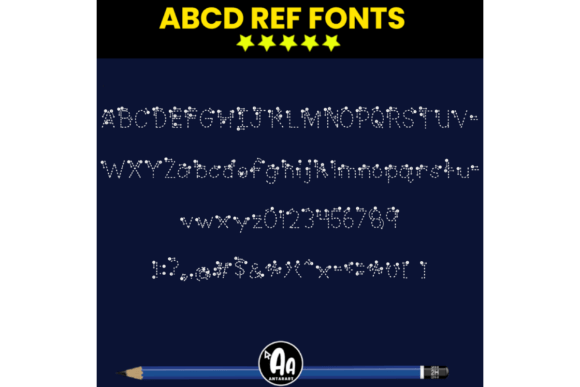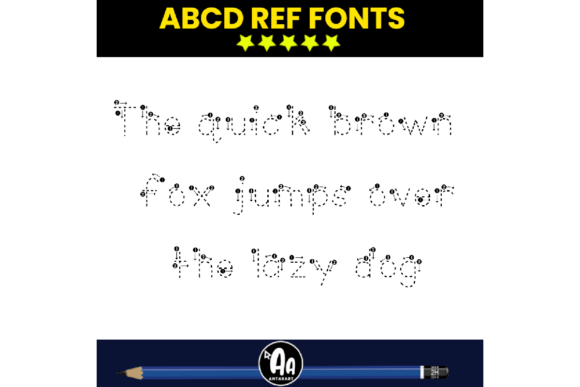
Unlocking Creative Learning with Abcd Ref Dashed Arrows Numbers Font
As a creative enthusiast, I’ve had my fair share of designing engaging materials for kids. One font that has truly revolutionized my workflow is the Abcd Ref Dashed Arrows Numbers Font. In this article, I’ll share my journey with this font, its features, and how you can make the most of it in your designs.
A Design Moment: The Struggle is Real
I recall working on a project for a kindergarten class, aiming to create interactive worksheets that would make learning fun. The challenge? Finding a font that was both educational and visually appealing. That’s when I stumbled upon the Abcd Ref Dashed Arrows Numbers Font. It was love at first sight! ✨
- âś… The font’s traditional school handwriting style is perfect for creating engaging and familiar materials for young learners.
- ✅ It includes uppercase and lowercase letters, numbers (0–9), and common symbols, making it versatile for various projects.
- âś… The dotted (dashed) arrows are a game-changer for creating interactive tracing worksheets.
While the Abcd Ref Dashed Arrows Numbers Font is amazing, there are a few things to keep in mind: 🤔
- ⚠️ It doesn’t support Spanish, so if you’re working with a Spanish-speaking audience, you might need to look for alternative fonts.
- ⚠️ Some users might find the font a bit too simplistic, but for its intended purpose, it’s perfect.
- Explore the OpenType features and glyphs to customize your text, such as adding dotted arrows for tracing worksheets.
The Abcd Ref Dashed Arrows Numbers Font was created with the intention of supporting teachers and homeschoolers in creating engaging, interactive materials for young learners. The designer aimed to replicate the traditional school handwriting style, making it familiar and easy to read for children.
Q: What is the recommended age range for using this font?
A: The Abcd Ref Dashed Arrows Numbers Font is perfect for kids aged 4-8, including PreK (preschoolers), kindergartners, 1st, and 2nd graders.
Q: Does the font support other languages?
A: Unfortunately, the Abcd Ref Dashed Arrows Numbers Font does not support Spanish or other languages.